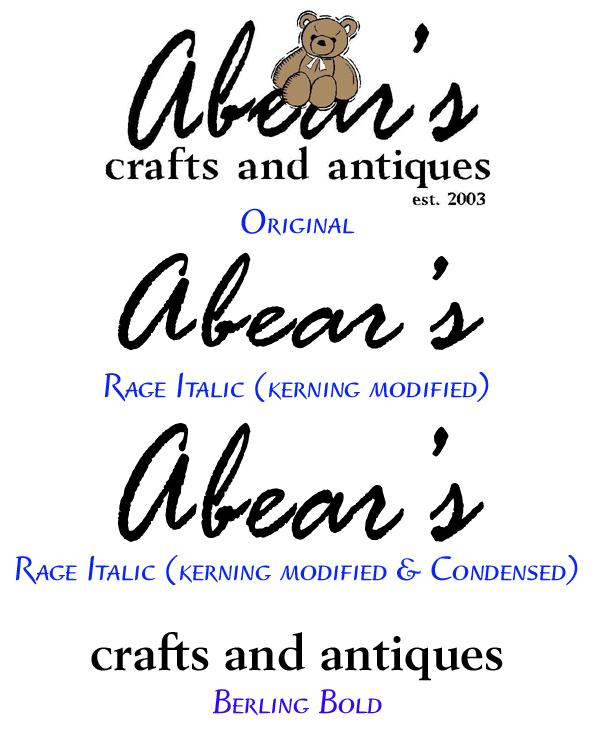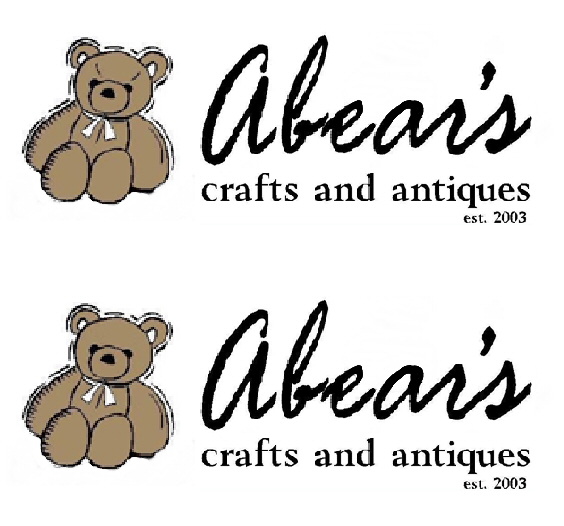
I've run across a couple of very close matches using Font Detective but no exacts on either font in this logo. I think the script is calen, rage or fern that has been kerned and clipped because of the tag on the "e" but the apostrphe doesn't match any of them so I have my doubts. I don't think the client will be that picky but if I can find an exact, I'd use it. Thanks in advance for your help....Fred. You haven't missed yet:thumb:
Actually Rage is a Letraset font. Corel licenses it. Letraset is owned by ITC. This is what ITC has to say about Rage:
American graphic designer Ron Zwingelberg created Rage in 1984. This popular style is one of the first casual brush script styles with a rough textured edge. The lower case letters can be linked up and are supported by a set of initialing capitals. These capitals are designed to be used as the first letter of a word. Rage Italic is an ideal choice where a spontaneous pen on parchment look is required.
Berling is a nice but not overly popular design offered by several foundries including URW, Linotype, Adobe, Agfa, Elsner+Flake and others. I've always found the main problem with it is that it only has two weights, Regular and Bold plus italics.
This is what Adobe has to say about it:
Typeface notes:
Berling was created by Karl-Erik Forsberg for the Berling foundry in 1951, with other weights added in 1958. The design is an old style roman, particularly useful for books, journals, and other text applications. Although it has higher contrast than most old style typefaces, Berling has the classic features of old style romans with its diminutive x-height, and ascenders that exceed the height of the capital letters. Berling is good for text settings as well as display work.
Designer:
• Karl-Erik Forsberg
Datcat, that logo could use some help. That bear sitting on top kills legibility big time and looks like it's just been plunked there for no thought-out reason. I know the customer probably supplied you with this, but it's a classic opportunity to suggest something better to them.
I'd also loose those eyebrows on the bear - he's mean lookin'.
The b & e should also be connected properly.
Oh what we don't do for the clients.......Happens to be a friend of mine's wife's shop. Too many personal ties to the original to suggest changes. His daughter did the bear as a Sr. art project. The shop's sign/logo was done by a popular chain sign franchise that rhymes with "last times". I did ask if it the direction they gave them was how it turned out and they said they only wanted something that incorporated the bear. This is going to be an auto mag project. I thought it was pretty shoddy looking and wanted to try something differnt but they want it to match the shop sign. The way they kerned and broke the text is pitiful. It appears that the tail on the "e" was an attempt to cut and node edit the text after it was turned into an object. BTW, they want the tail added to the "e" like it is in the original even after I showed them the way the text is supposed to look.
I thought I smelled a franchise! Yes I've had similar situations, and amazes me how people will want to stick with something that's poorly done (not subjective stuff.....I mean poor), just for the sake of "making it the same" as before.
I don't know how far along you are with this job but feel free to take my rough and show them. Just tell 'em you came up with something that you thought would work a little better, but still utilizing all of their original elememts.